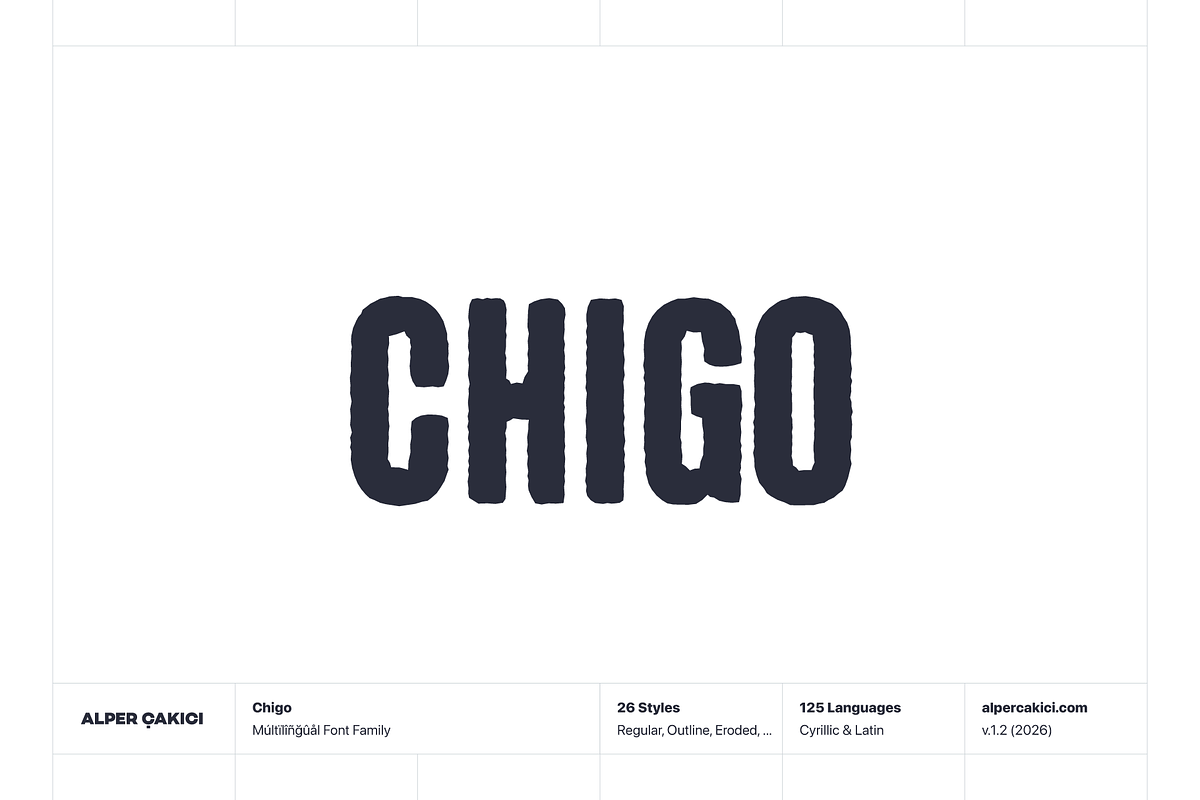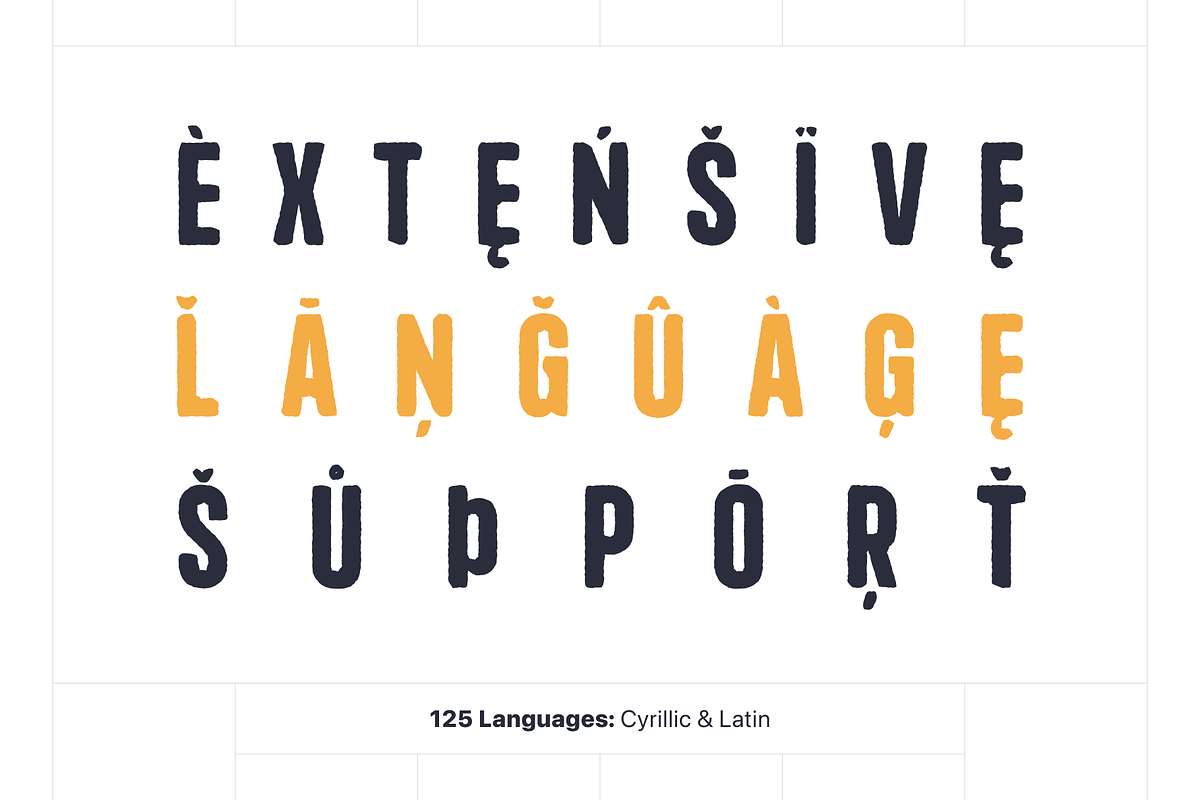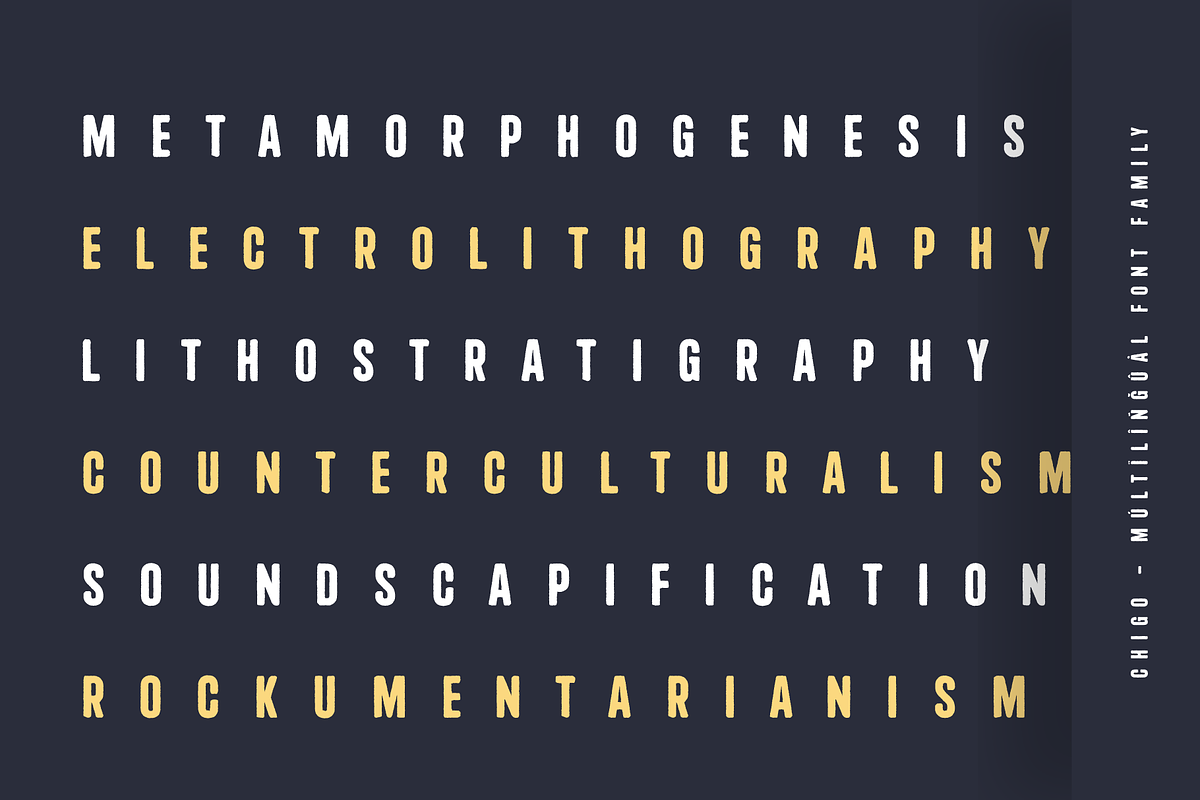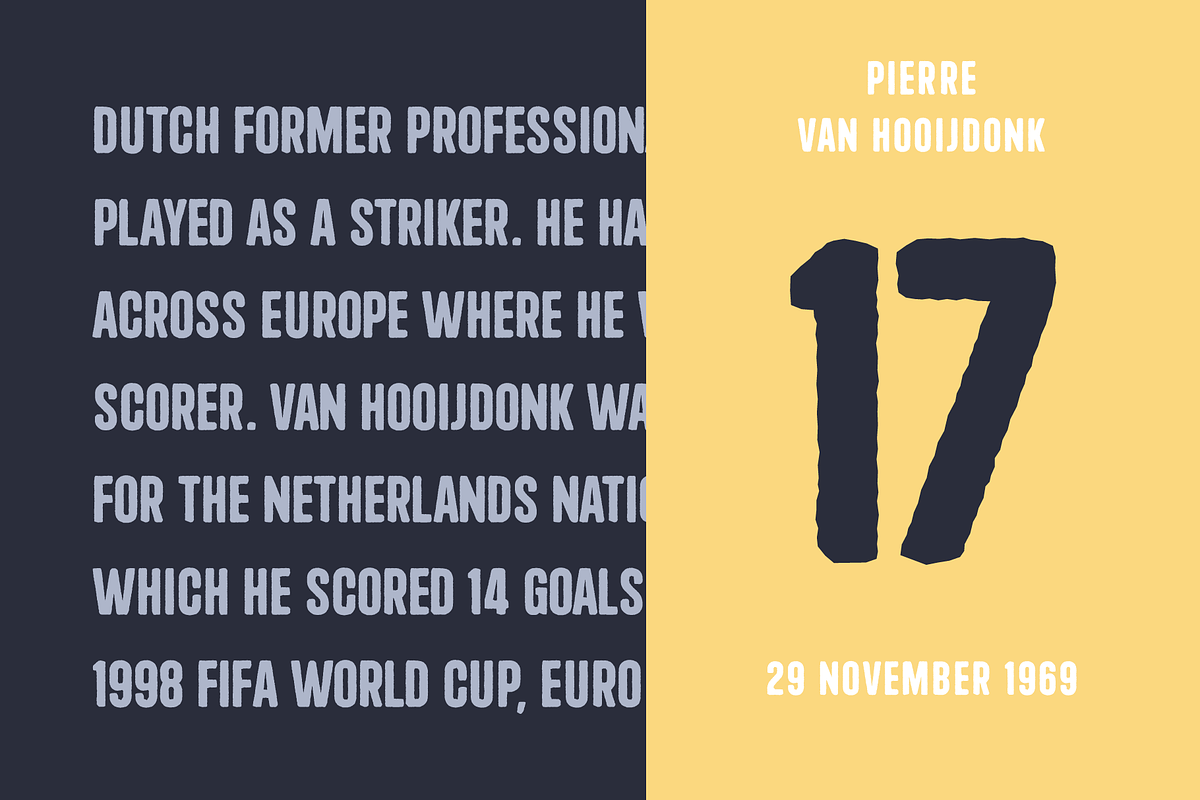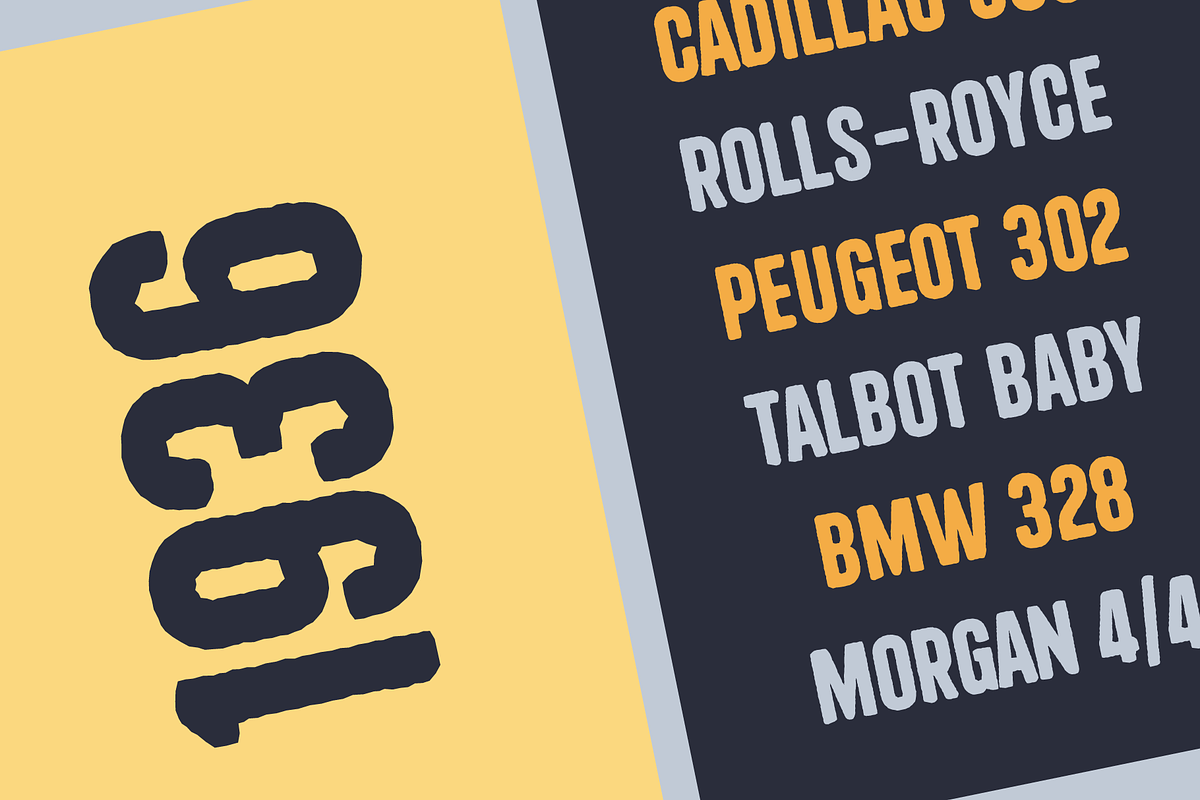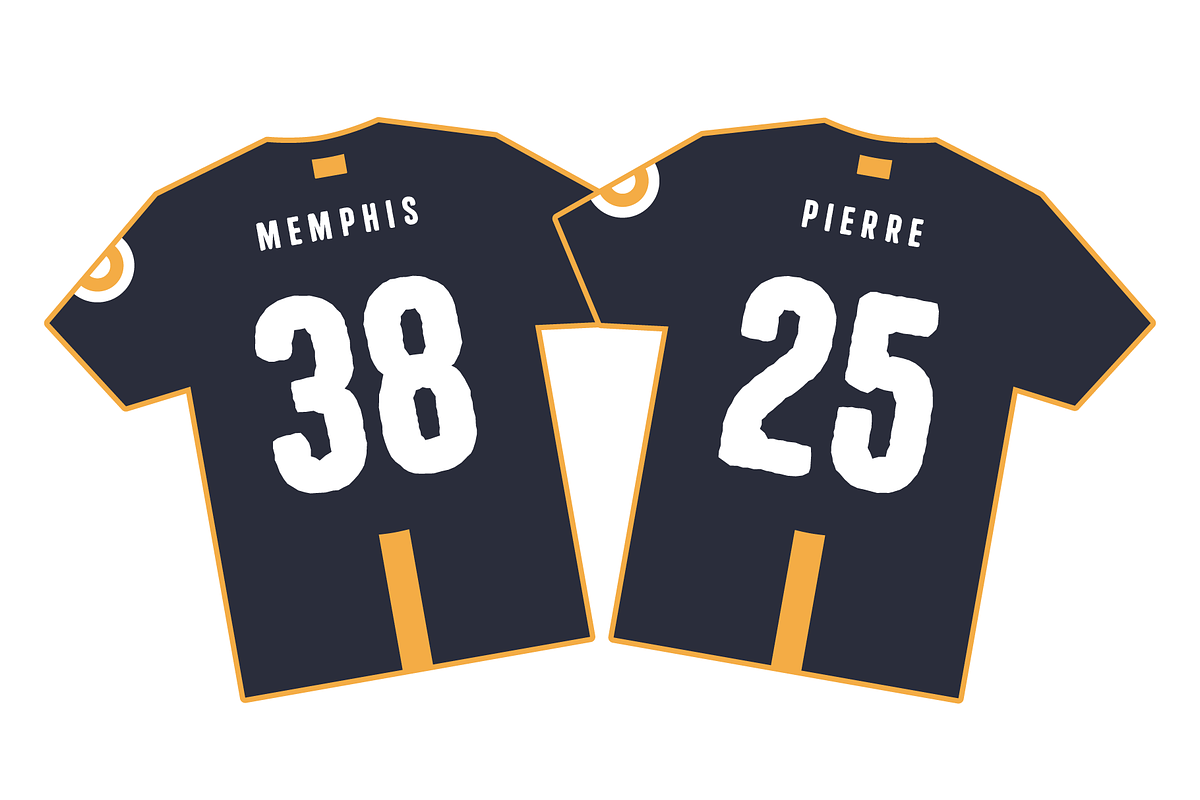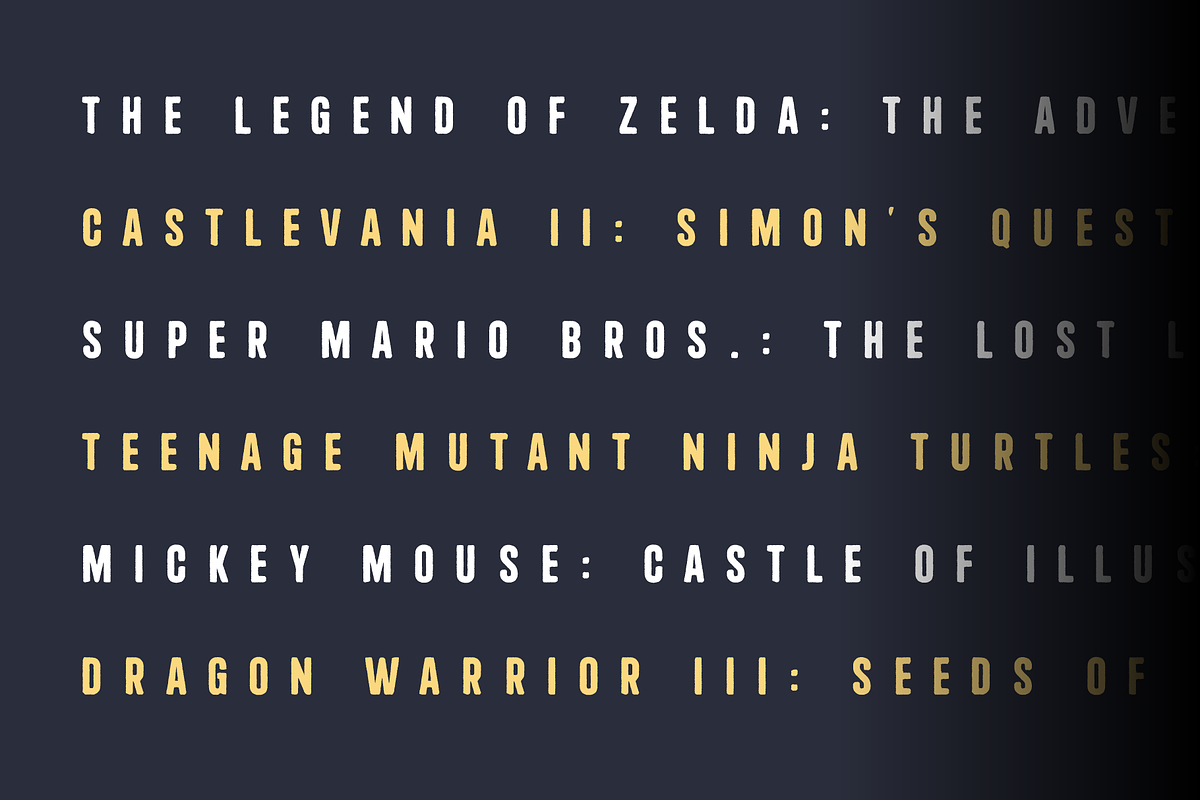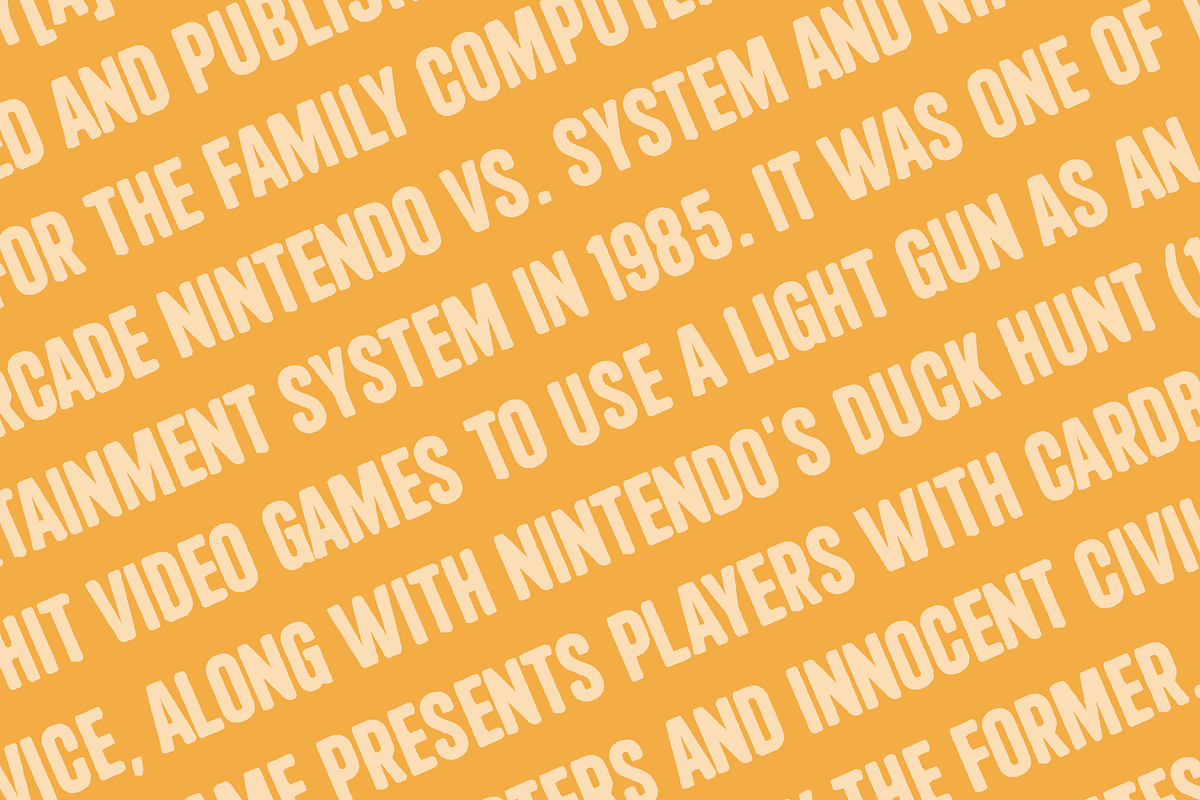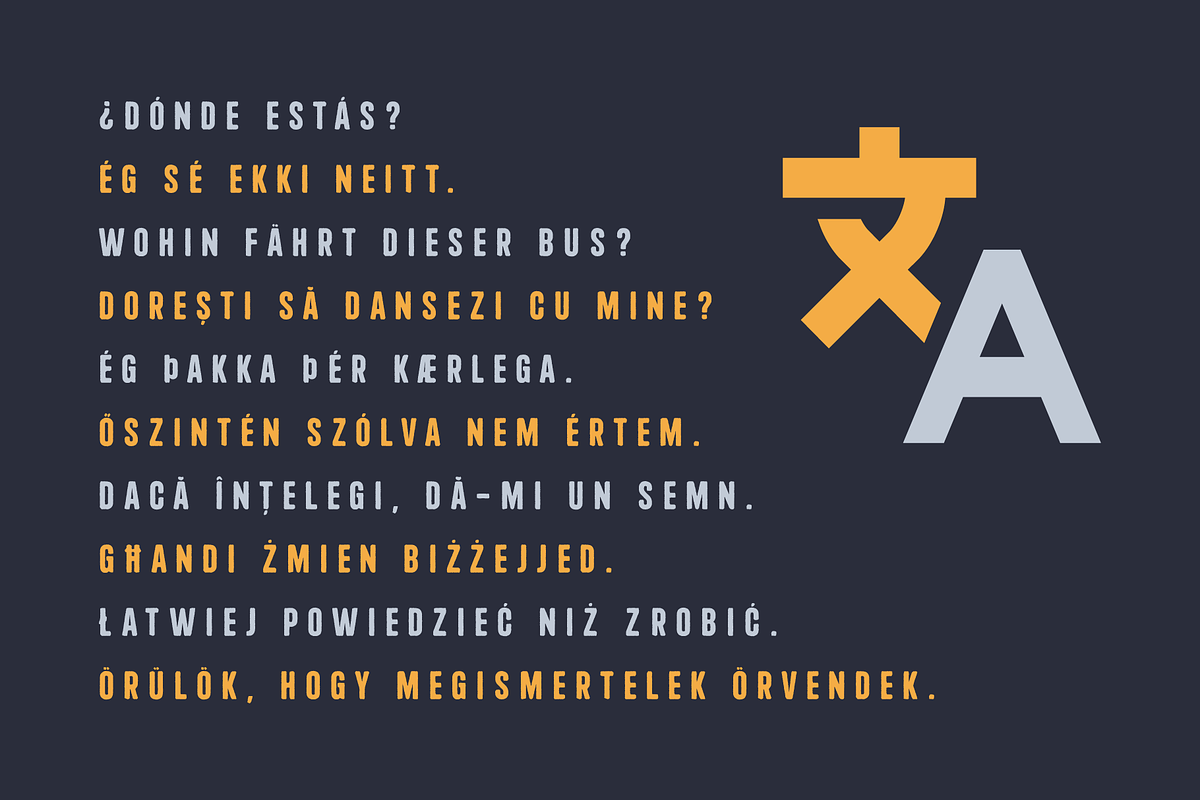
Chigo - Cyrillic Rough Typeface
Chigo is a rough, slim sans serif crafted for striking titles and bold visual statements. Its tall proportions and condensed structure give it a commanding presence, while its textured finishes add character and versatility. Designed to balance clarity with expressive detail, Chigo works beautifully across editorial headlines, branding, posters, and digital layouts.
The family includes 26 styles, ranging from clean and precise to heavily distressed and organic. Variants like Angular, Brush, Pencil, and Eroded introduce distinct personalities, while the Rounded series softens the tone for a more approachable feel. Each style is paired with matching italics, offering flexibility for dynamic typography systems.
Supporting both Cyrillic and Latin languages, Chigo is built for wide usability across global projects. Whether you need sharp geometric edges or handcrafted roughness, Chigo delivers a cohesive yet diverse toolkit for impactful design.